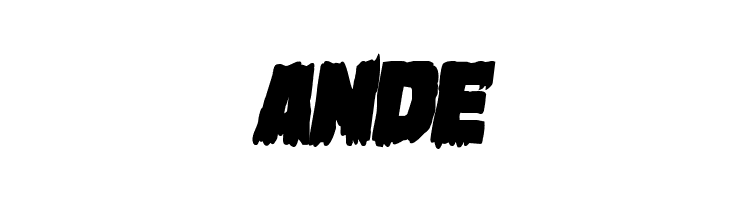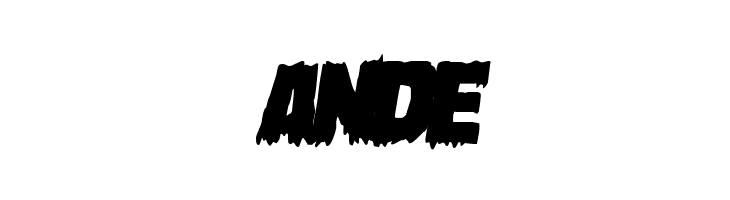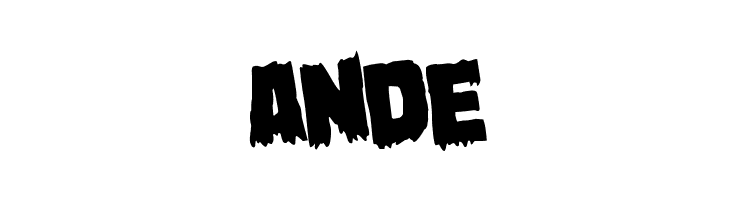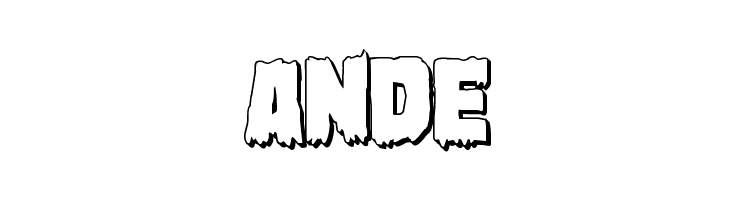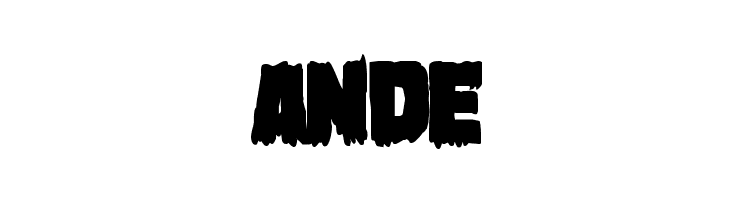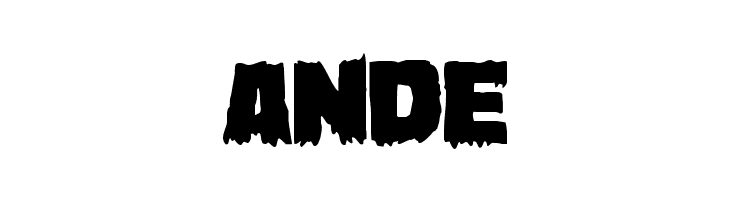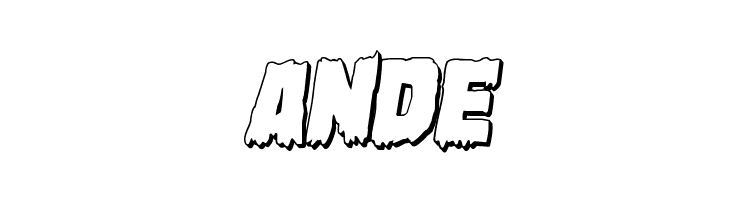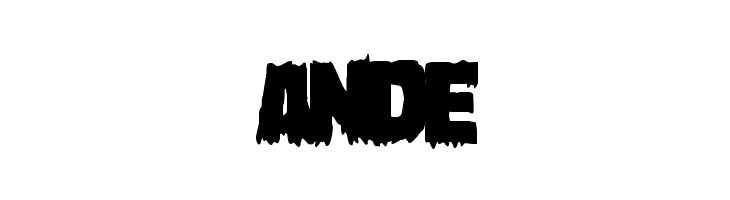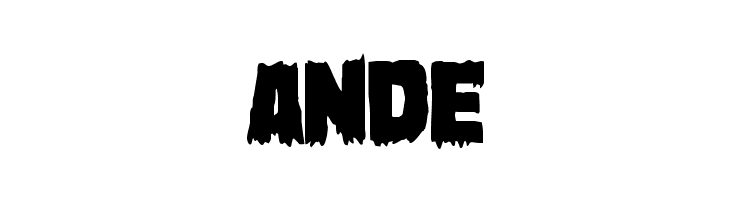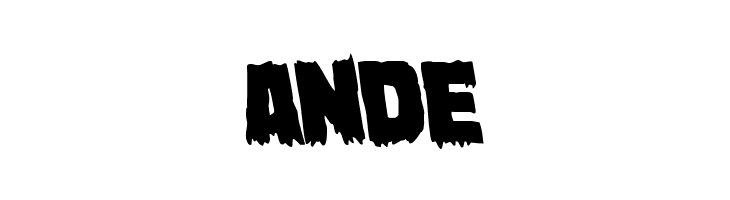
• Marijuana
A bold, decorative font with intricate marijuana leaf patterns.
• Mario Kart DS Regular
A bold, pixelated font with a retro, video game-inspired style.
• marivi handwriting
A playful, handwritten font with tall, narrow letters and a casual, organic style.
• Marker Comp
A bold, handwritten-style font with a casual, marker-like appearance.
• Marker Pen
A bold, expressive font with a hand-drawn, marker-like style.
• Market Leader
A bold, flowing script font with dynamic slant and elegant flourishes.
• Market Leader
• Marmalade Toast
A playful, handwritten font with a casual and dynamic style.
• Marsh Thing 3D
A bold, playful 3D font with a marshmallow-like appearance.
• Marsh Thing 3D Italic
A bold, 3D italic font with a dripping effect, ideal for playful designs.
• Marsh Thing Academy
A bold, dripping font with a spooky, Halloween-inspired style.
• Marsh Thing Bold
A bold, rugged font with a dripping, melting effect.
• Marsh Thing Bold Italic
A bold, italicized font with a rugged, textured appearance.
• Marsh Thing Bold Outline
A bold, playful outline font with a dripping, spooky style.
• Marsh Thing Condensed
A bold, condensed font with a distressed, jagged style ideal for horror themes.
• Marsh Thing Condensed Italic
A bold, condensed, and italic font with jagged edges, ideal for dramatic themes.
• Marsh Thing Expanded
A bold, rugged font with a distressed, organic appearance.
• Marsh Thing Expanded Italic
A bold, expanded, and italicized font with a rugged, textured appearance.
• Marsh Thing Italic
A bold, distressed italic font with a rugged, energetic style.
• Marsh Thing Leftalic
A bold, rugged font with jagged edges and an organic, adventurous style.